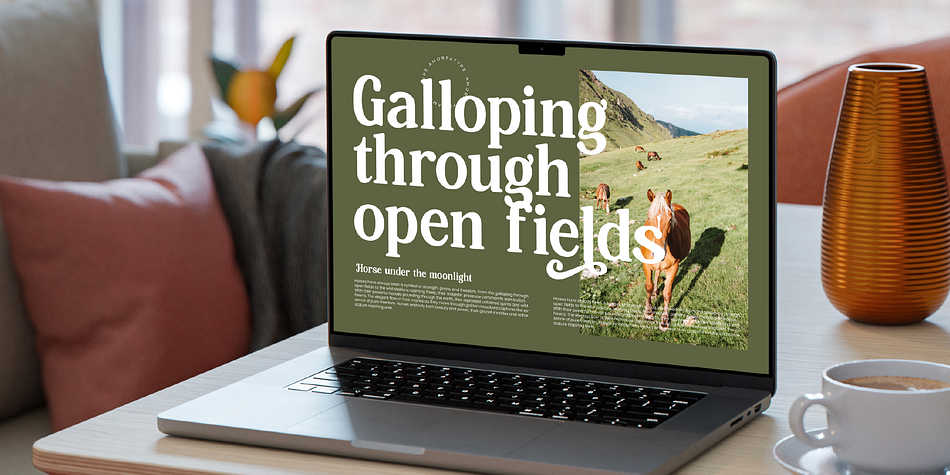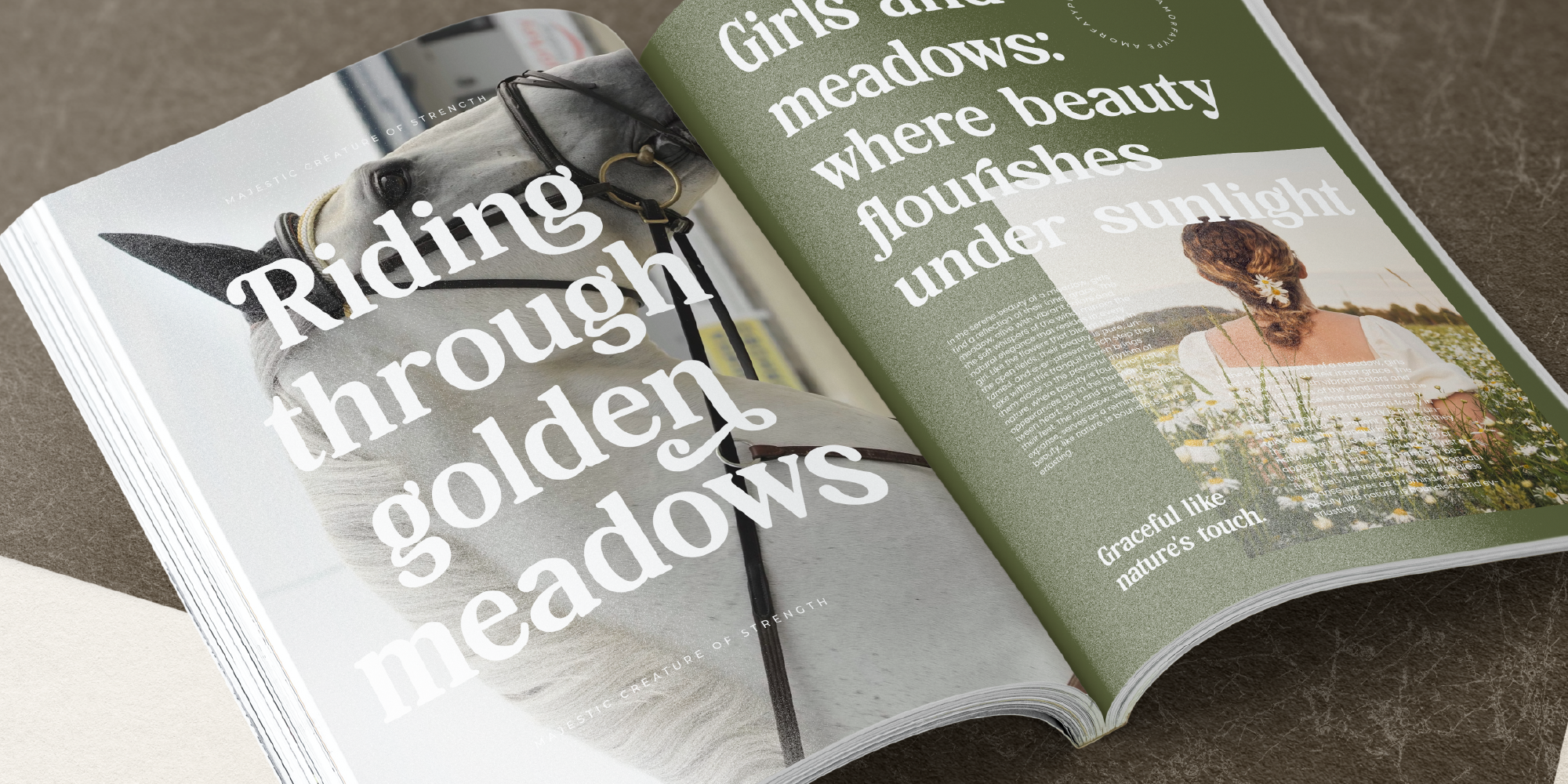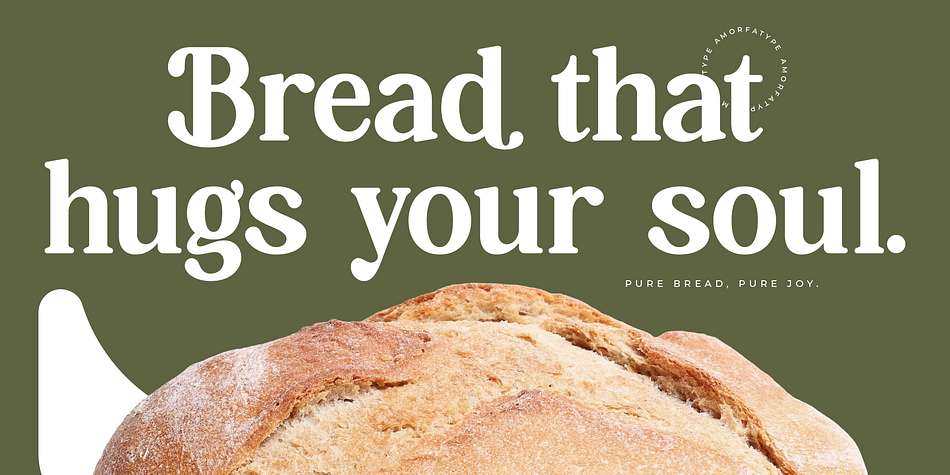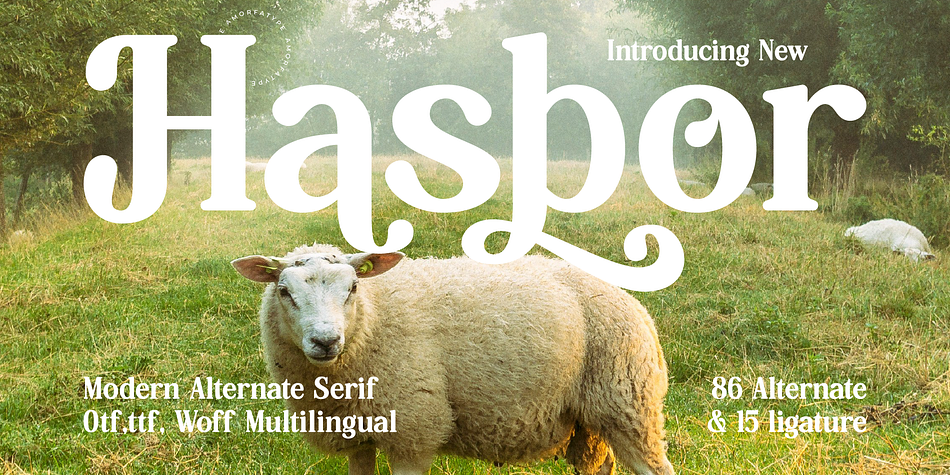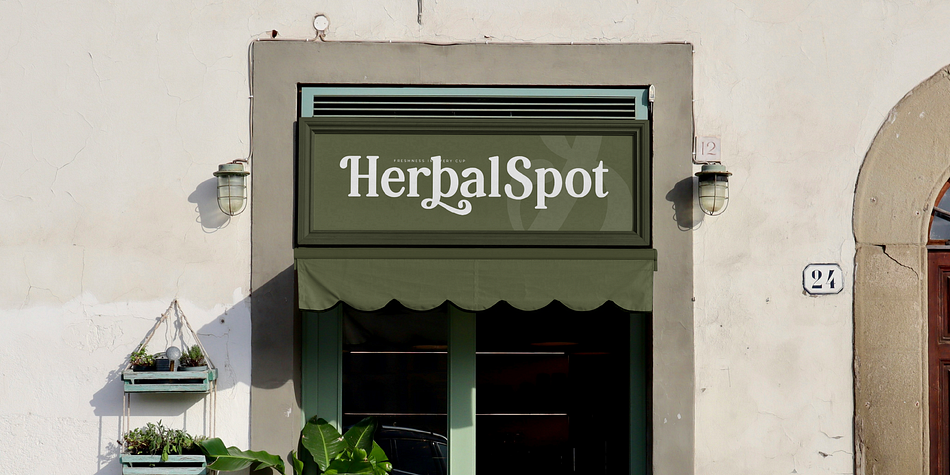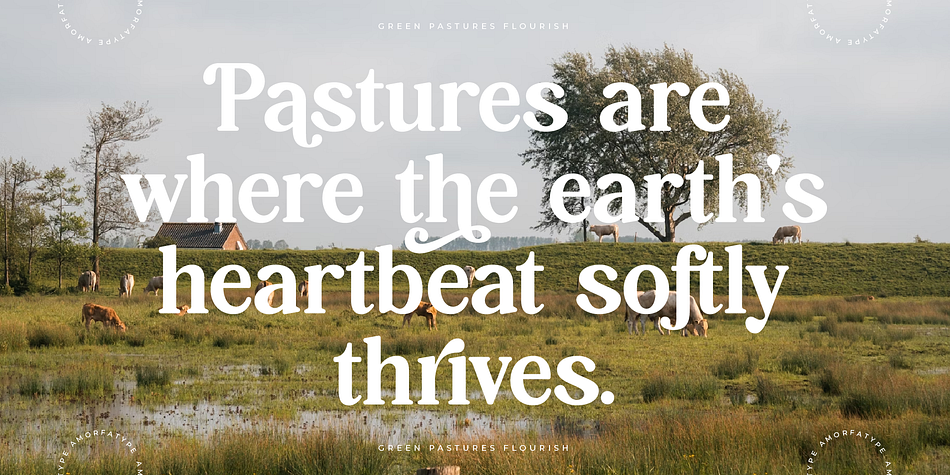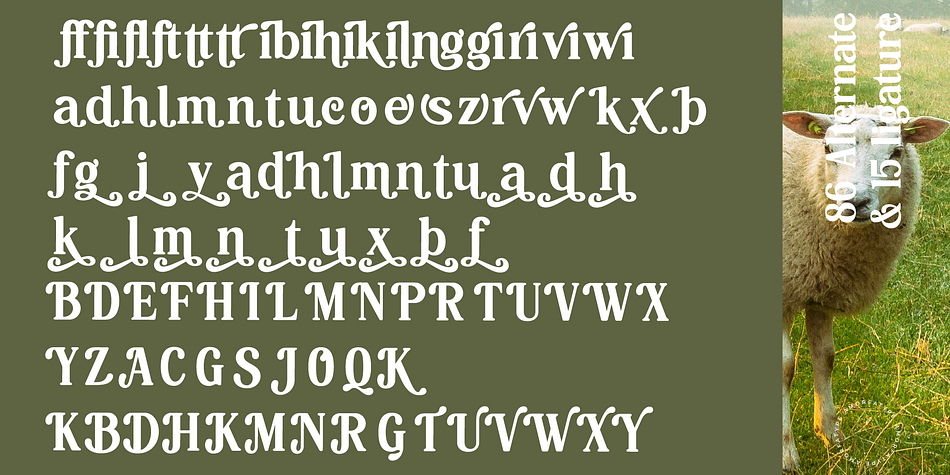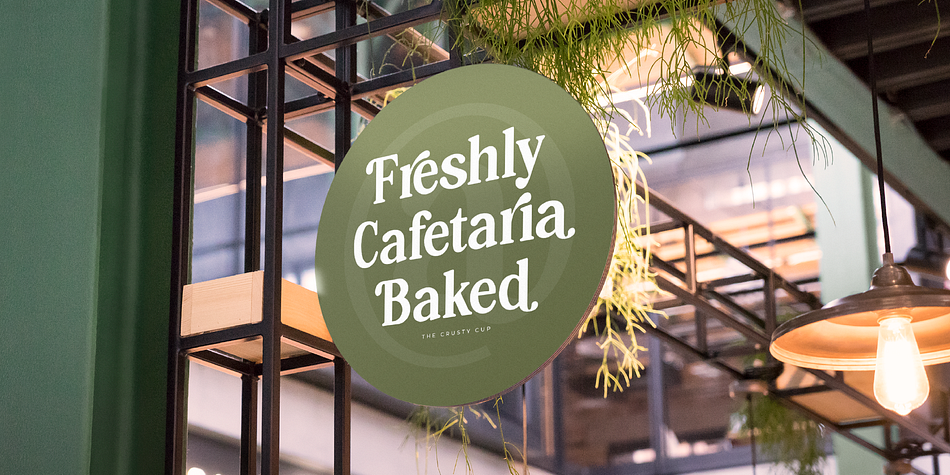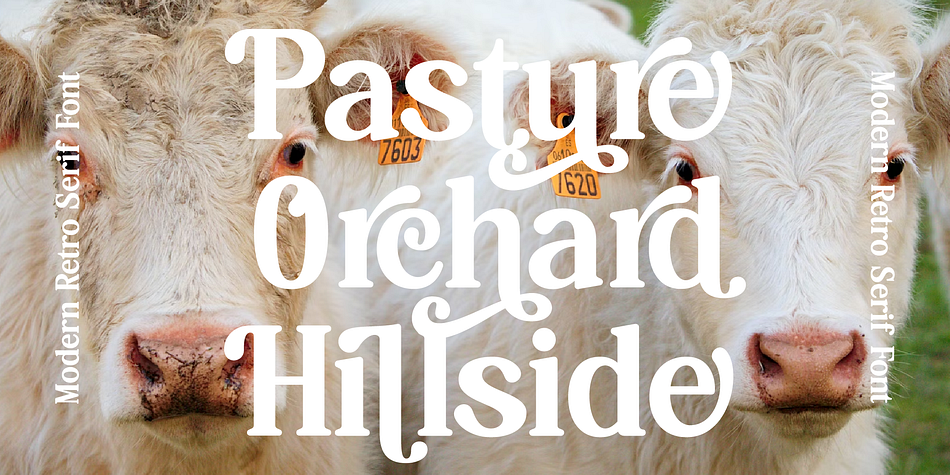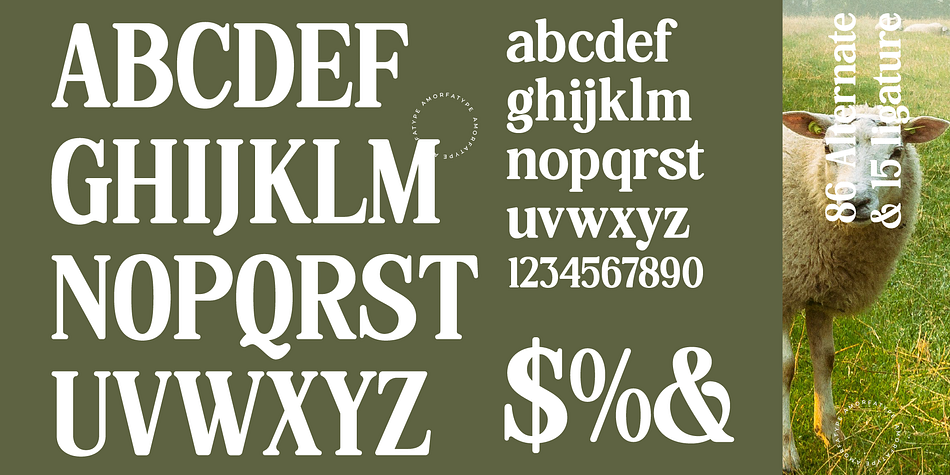
Hasbor
Hasbor is a serif font family. This typeface has two styles and was published by AmorfaType.
Hasbor Modern Alternate Serif Font by Amorfatype
Hasbor is a bold and modern alternate serif font that redefines elegance with a contemporary twist. Featuring clean, geometric serifs and refined alternate letterforms, this font exudes sophistication and creativity, making it an excellent choice for diverse design projects. The harmonious contrasts in stroke weights and its distinct design elements give Hasbor a polished and unique appearance, perfectly balancing classic tradition with modern innovation.
Engineered for versatility, Hasbor performs exceptionally across a wide range of applications, from high-end branding and editorial layouts to digital design interfaces. Its bold yet stylish character stands out in impactful headlines while retaining excellent readability in smaller text sizes. Each glyph is meticulously crafted to ensure a perfect balance of functionality and aesthetics, delivering a seamless experience for designers and audiences alike.
. Hasbor est une police de caractères à empattement alternatif moderne et audacieuse qui redéfinit l’élégance avec une touche contemporaine. Avec ses empattements géométriques épurés et ses formes de lettres alternatives raffinées, cette police dégage sophistication et créativité, en faisant un excellent choix pour divers projets de design. Les contrastes harmonieux dans l’épaisseur des traits et ses éléments de design distinctifs confèrent à Hasbor une apparence polie et unique, équilibrant parfaitement tradition classique et innovation moderne.
Conçue pour être polyvalente, Hasbor s’adapte parfaitement à une large gamme d’applications, des marques haut de gamme et mises en page éditoriales aux interfaces de conception numérique. Son caractère audacieux mais élégant se démarque dans des titres percutants tout en conservant une excellente lisibilité dans les tailles de texte plus petites. Chaque glyphe est minutieusement conçu pour assurer un équilibre parfait entre fonctionnalité et esthétique, offrant une expérience fluide pour les designers et leur public.
Ligatures, Alternates & Swashes